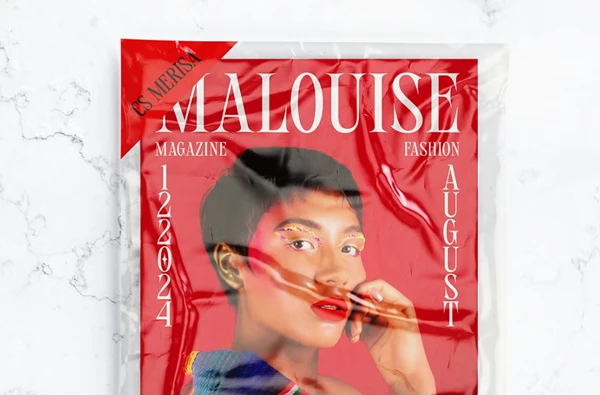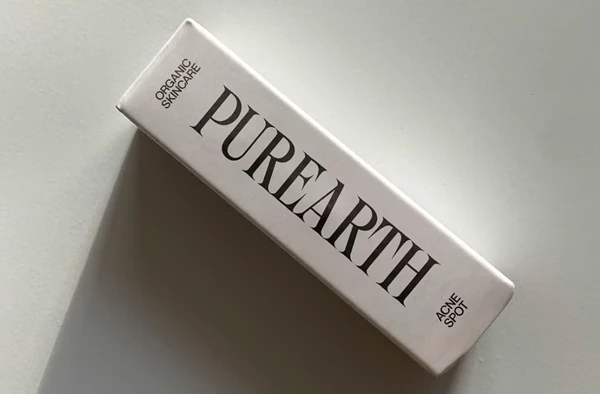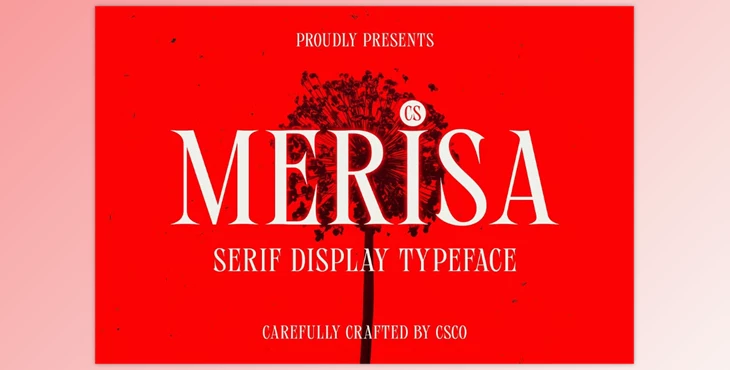
CS Merisa – Classic Font:
CS Merisa is a font of classic modern serif. This font is combination of contemporary and classic design. Its long serifs and proportionate letters make CS Merisa to look classy and sophisticated, Unlike other fonts, this one looks premium which makes it suitable for stylish design projects. Branding, editorials and even luxury packaging apply CS Merisa for its grace and prestige adde in every visual composition.